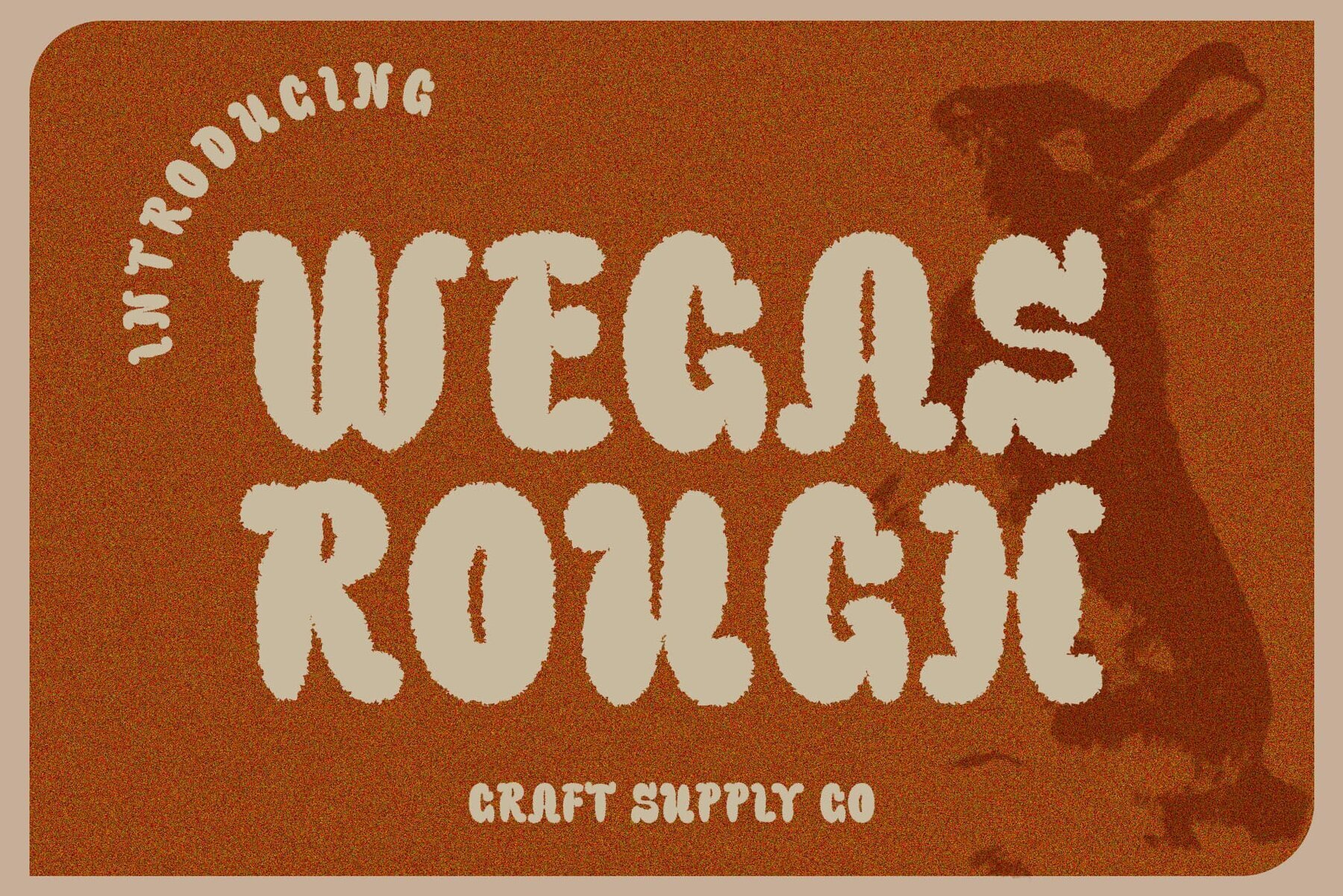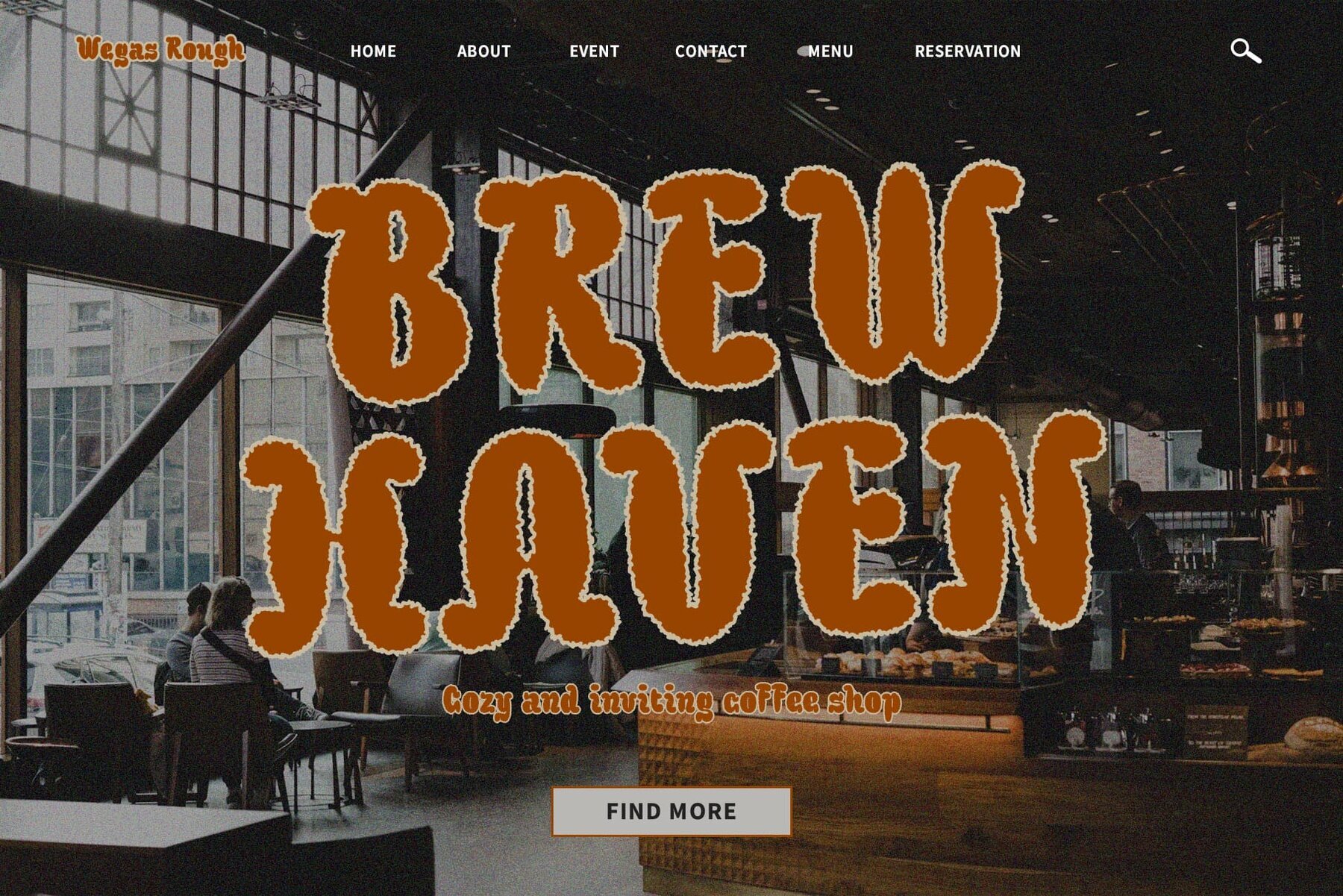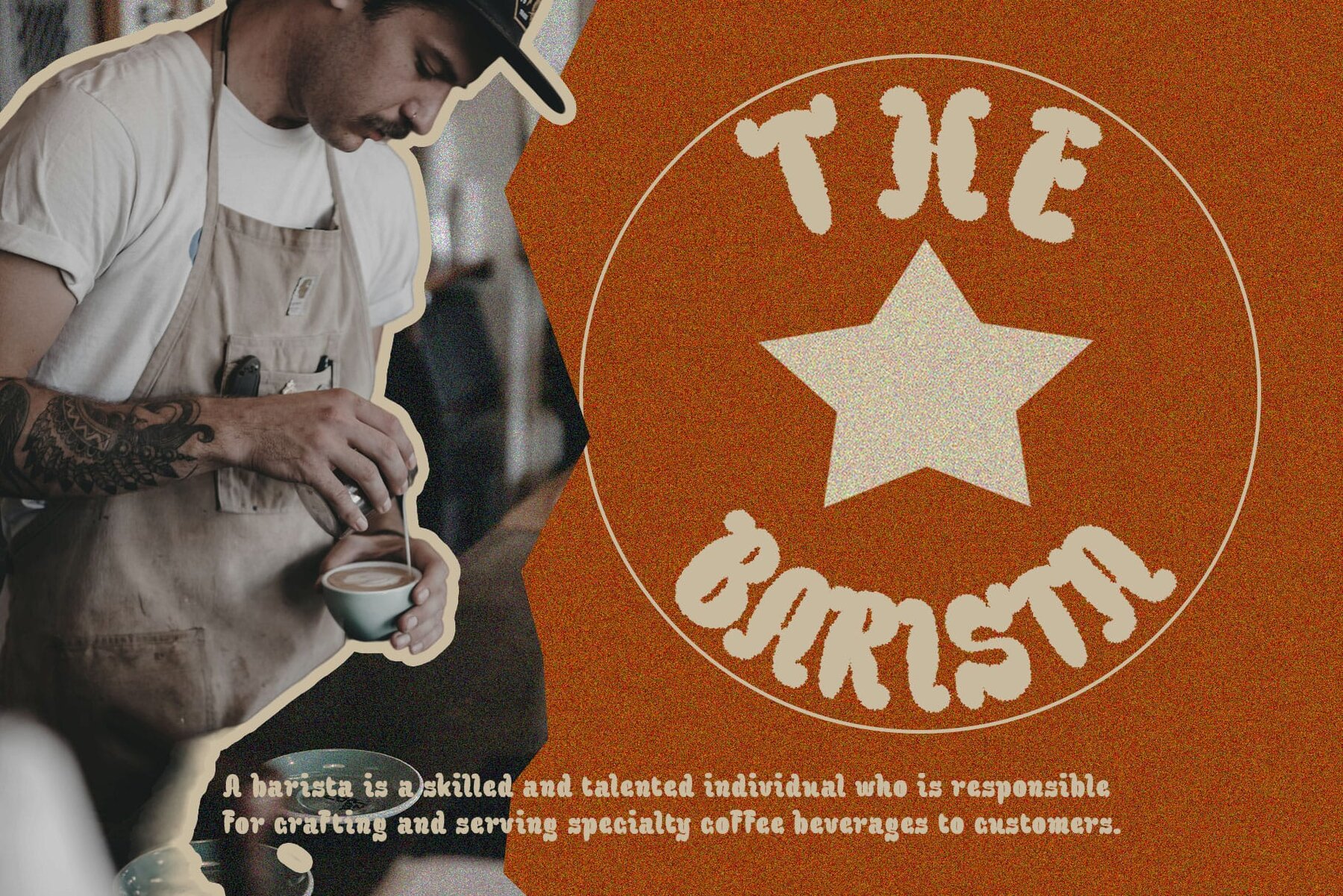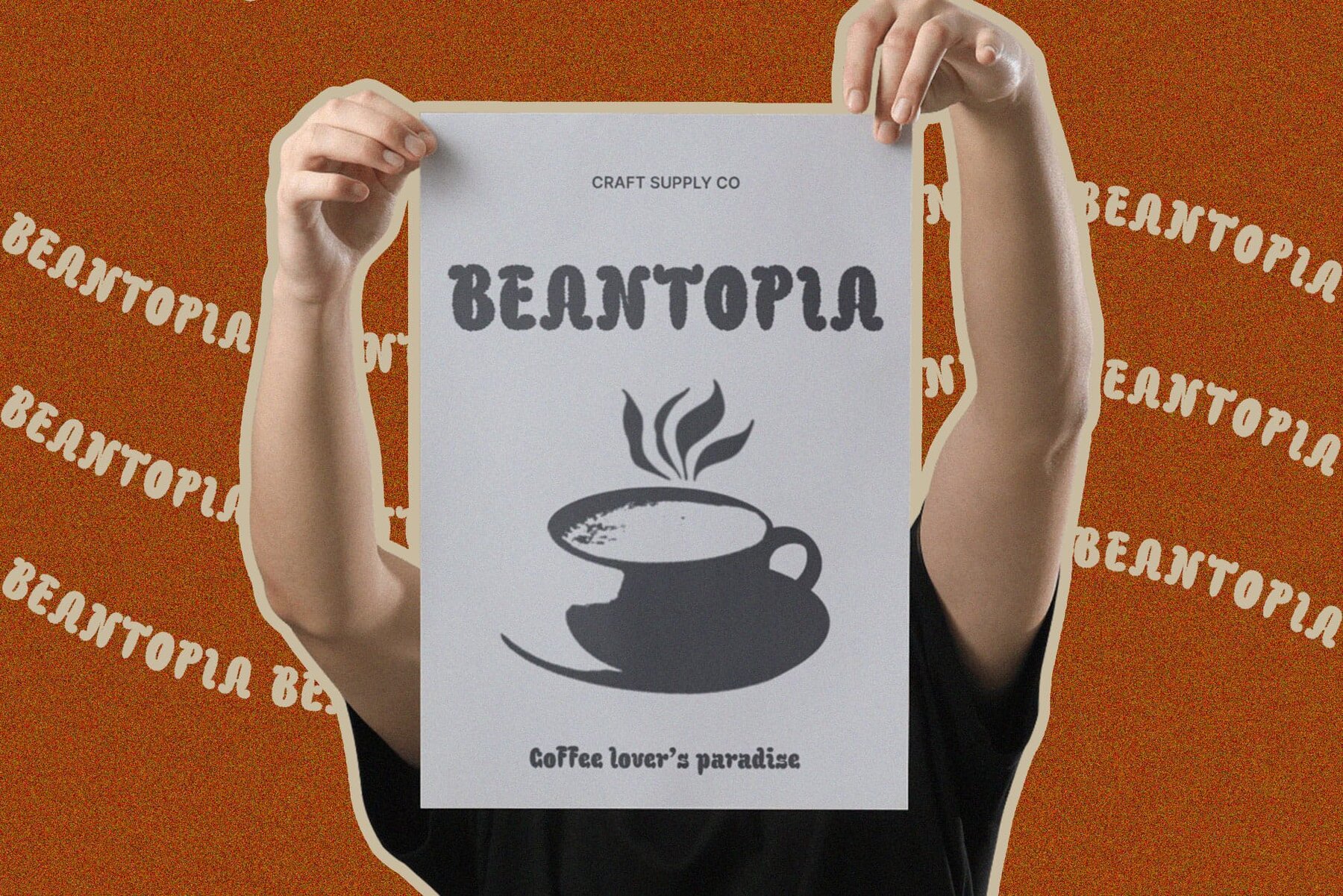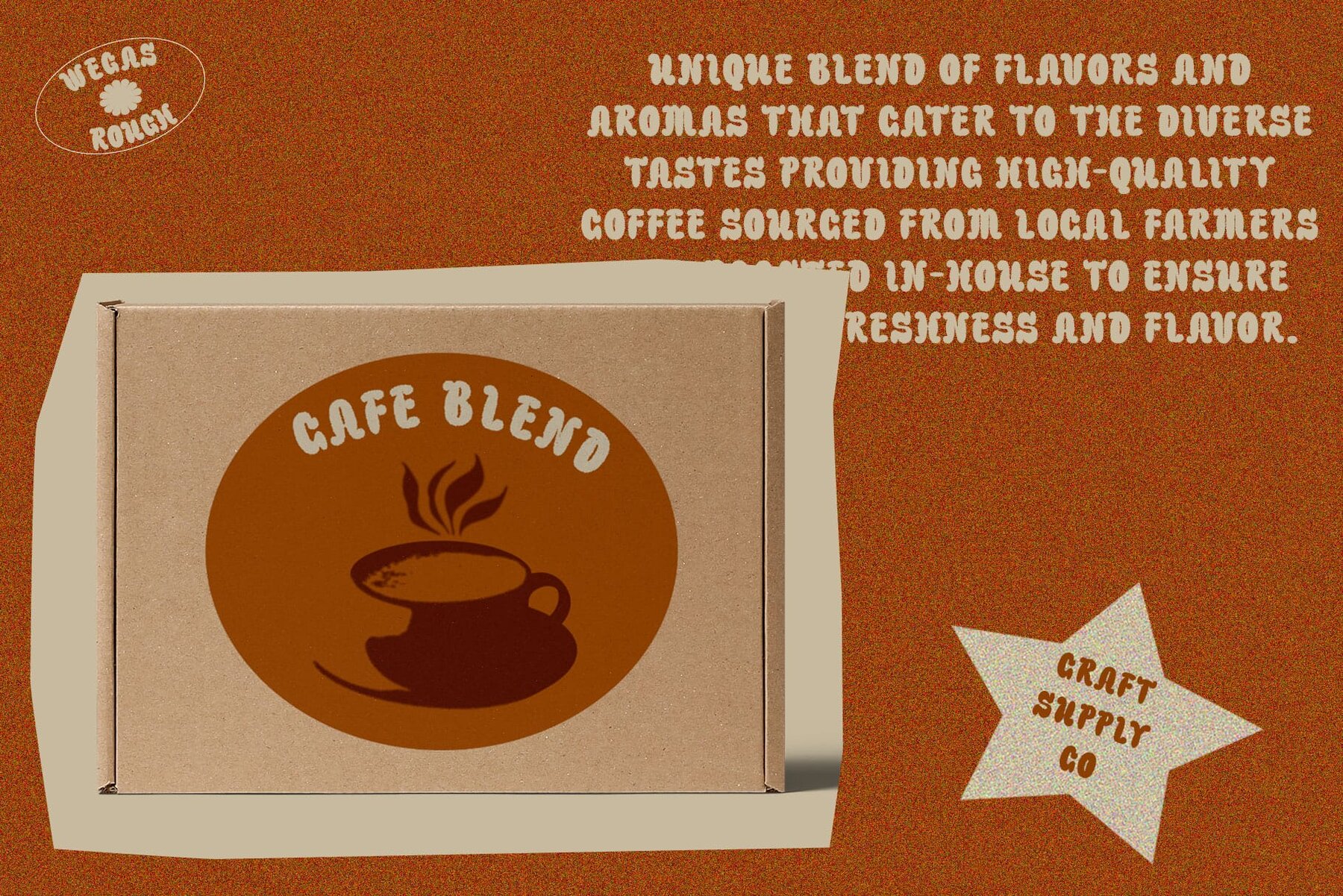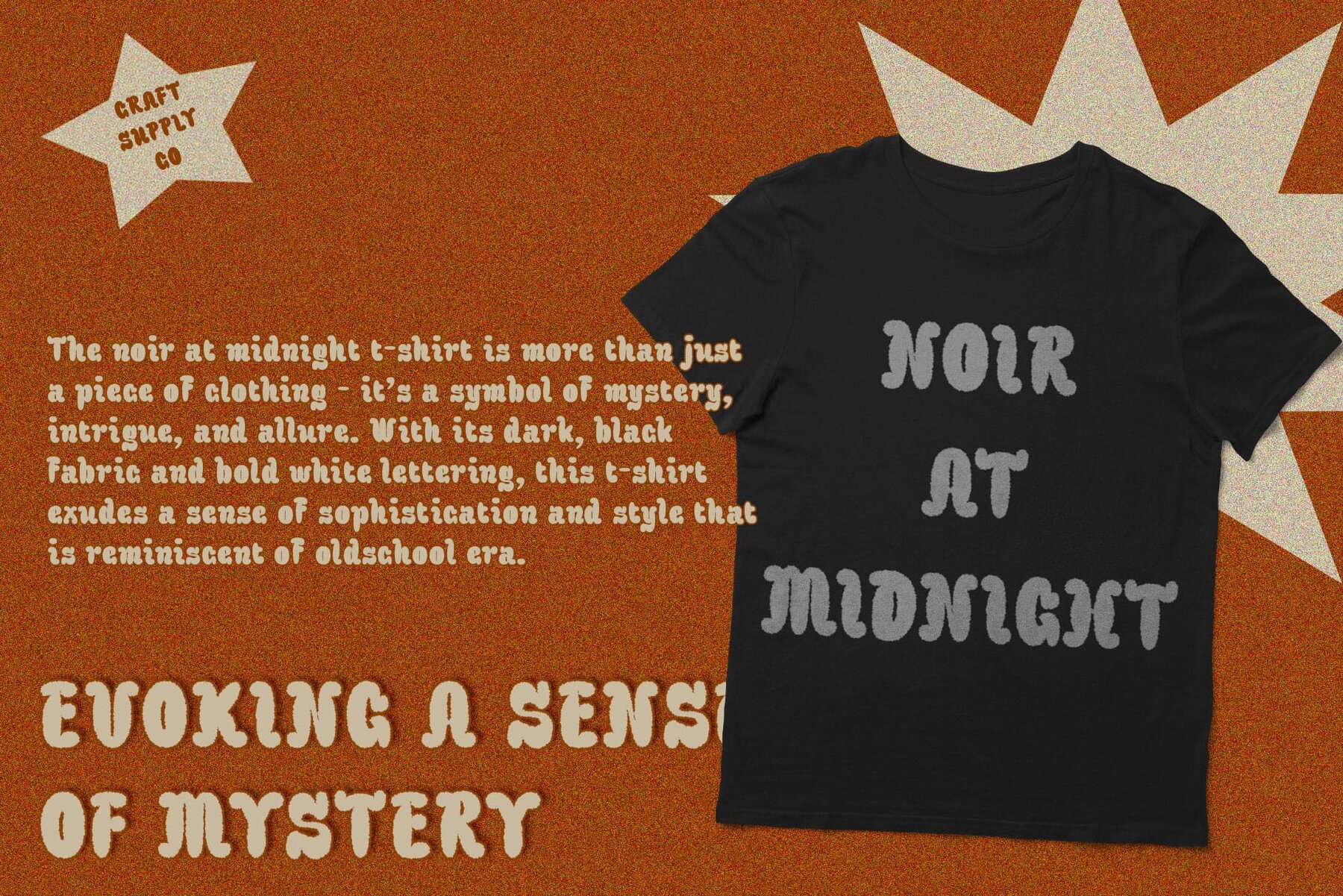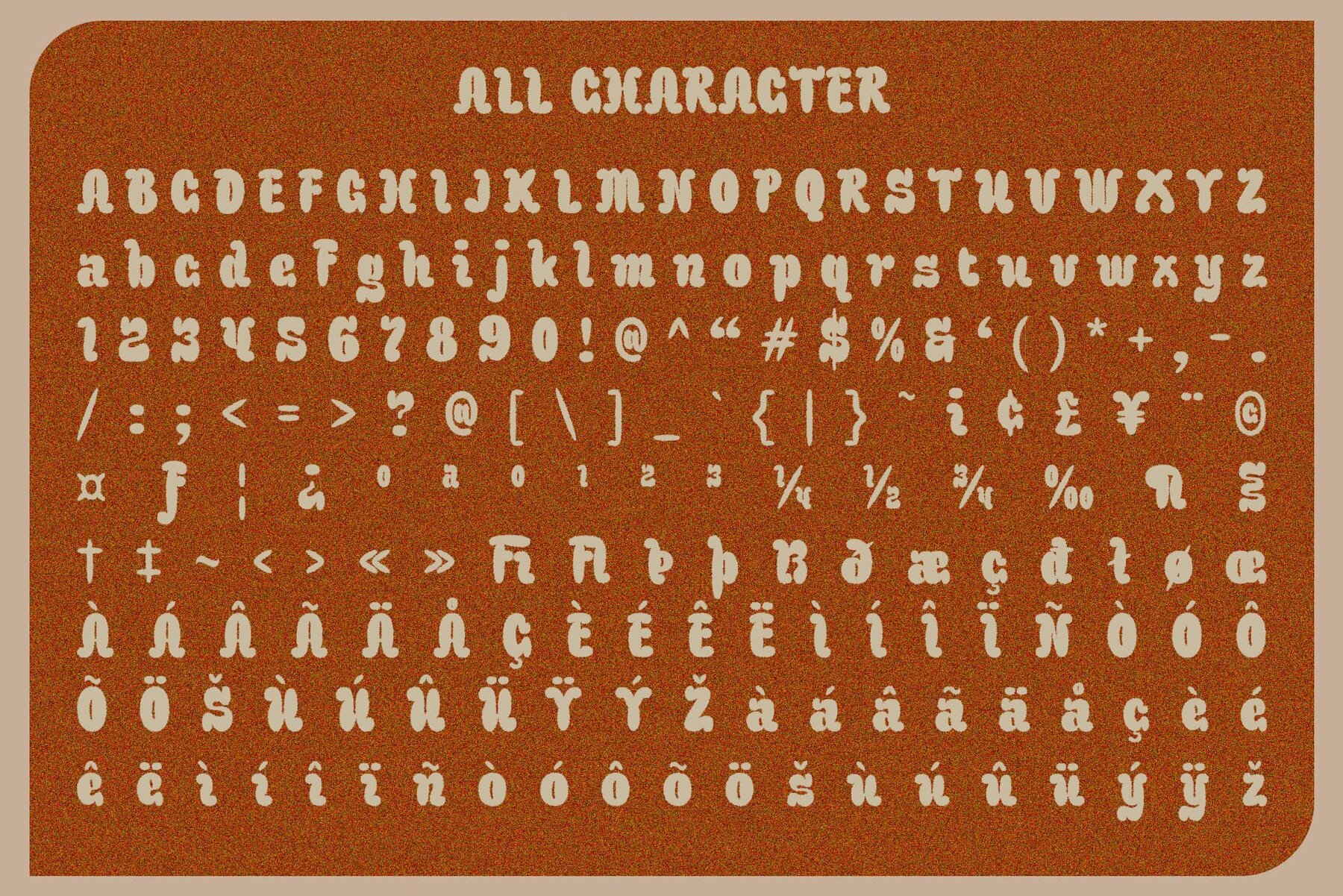
Wegas Rough Font
Wegas Rough by Craft Supply Co. is a standout display font that captures the lighthearted essence of children's themes and informal events. Mimicking the structure of floating bubbles, this font adds a fun and playful vibe to any project, making it ideal for special occasions, party invitations, and comedic content. Each character in the Wegas Rough font is designed to resemble a charming, airy bubble. This unique style is crafted to bring a sense of joy and festivity to your designs, enhancing the visual appeal with its delightful, floating illusion. The font includes a distinct rough texture that gives it a dynamic edge, making it perfect for more textured and engaging visual designs. This feature adds depth and character to the playful shape of the bubbles, allowing for a creative display in a variety of contexts.Wegas Rough: A Whimsical Display Font with Bubble Balloon Design
Bubble Balloon Design
Rough Texture Effect